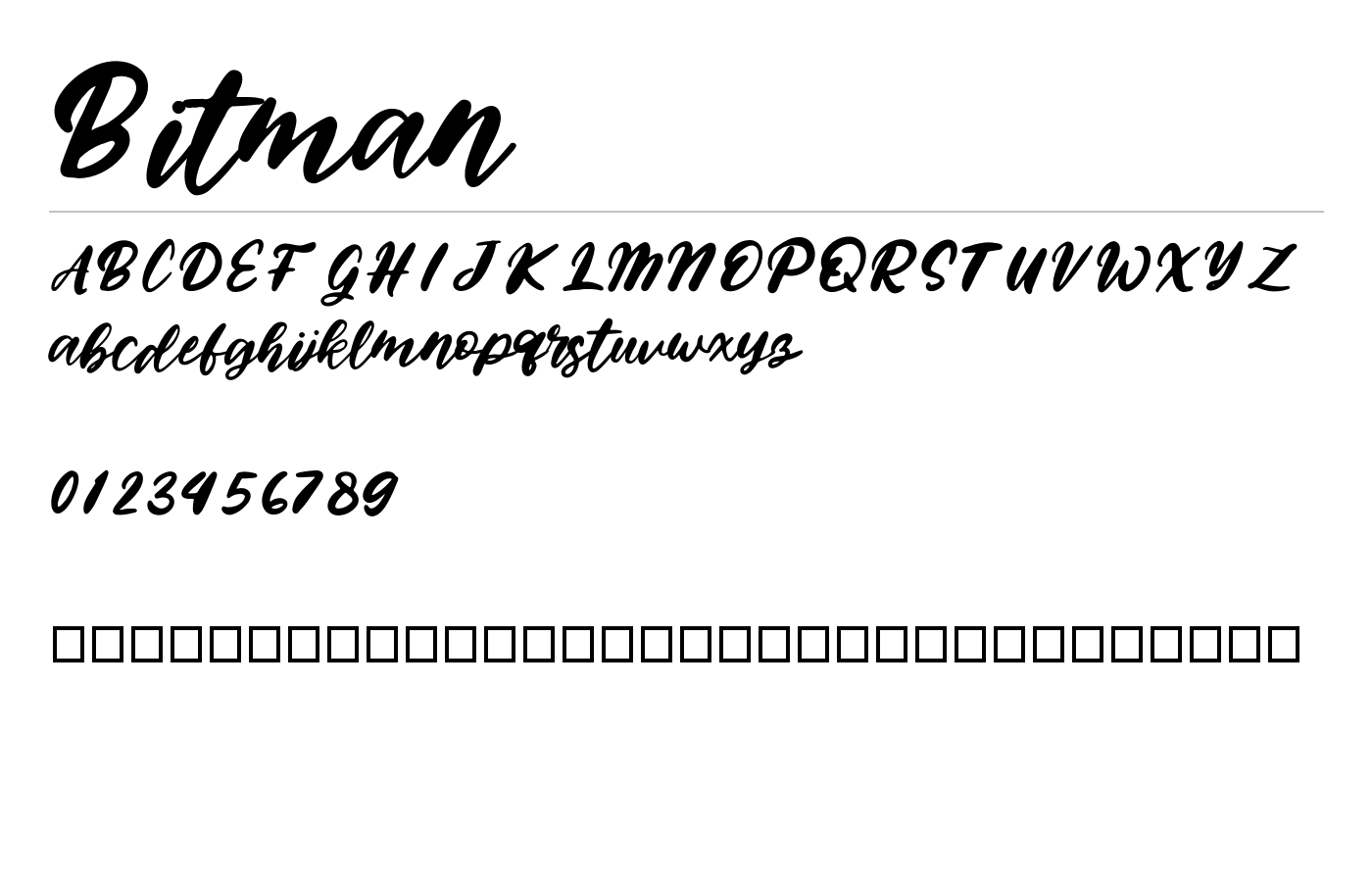
Bitman is a lively script font with smooth, flowing strokes that convey a sense of elegance and warmth. Its moderately bold weight and slightly condensed letterforms make it ideal for eye-catching headlines, branding, and invitations where a personal, hand-crafted feel is desired. This font excels in creative and friendly design projects looking for a modern yet approachable script style.
Bitman Font
About Bitman Font